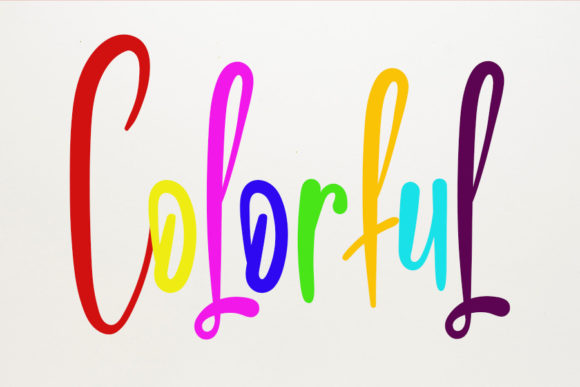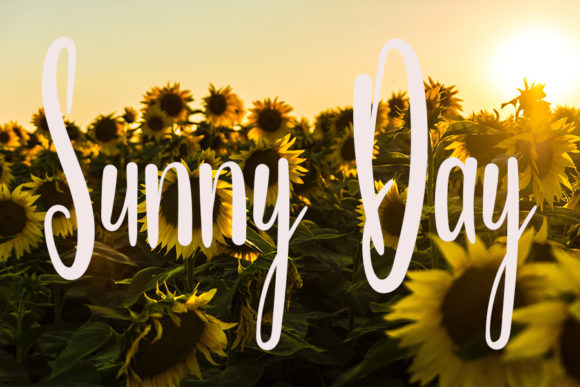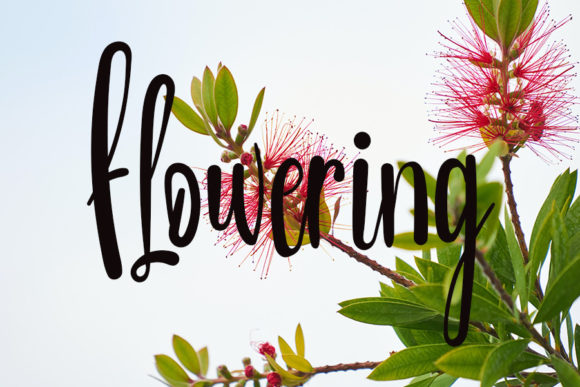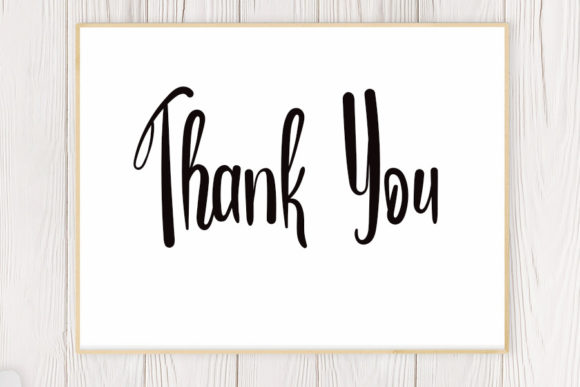
About Beautiful Color Font
Beautiful Color is a beautiful and versatile handwritten font with a unique feel and a stunning impact. It will add a lovely spark to any design or creative project you have coming up.